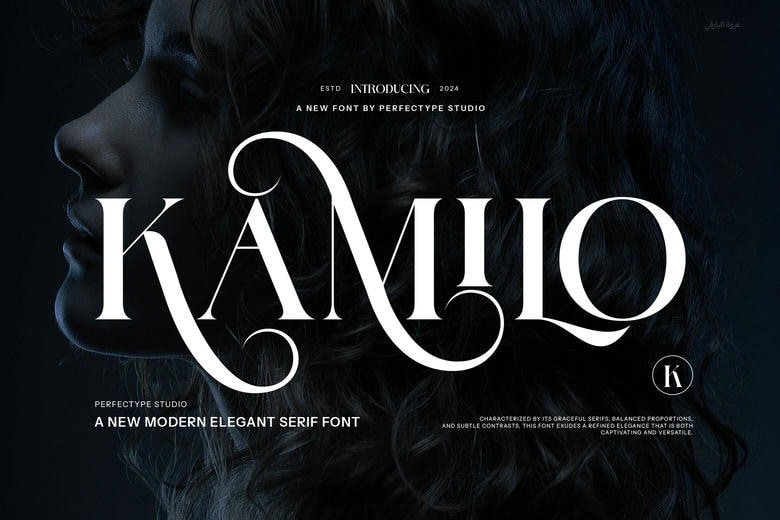
Kamilo Font
Kamilo is a font known as a “ligature serif.” This means its letters connect in a way that helps them flow smoothly together. The font also has small lines at the ends of the letters, giving it a classic and elegant style. Kamilo makes text look stylish and unique, but it is still easy to read.
Kamilo Serif Font